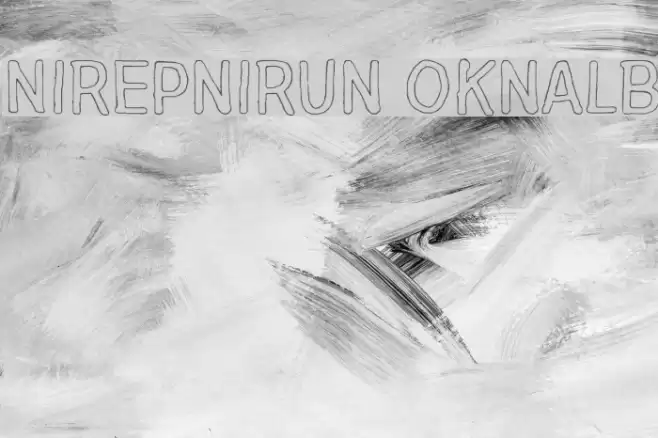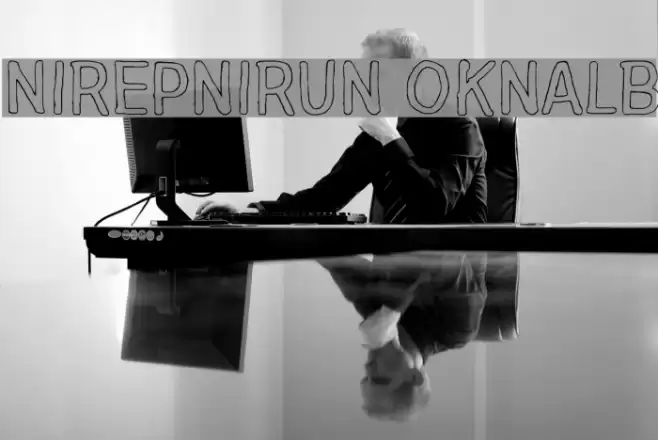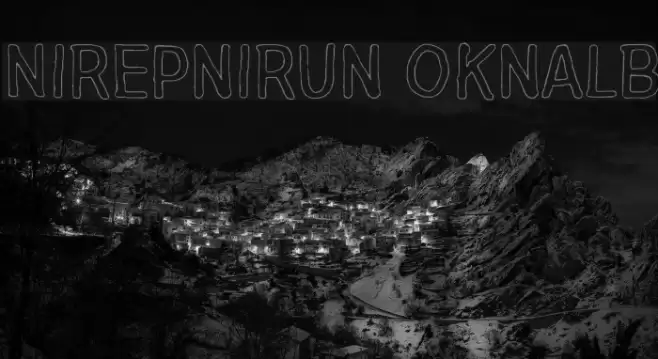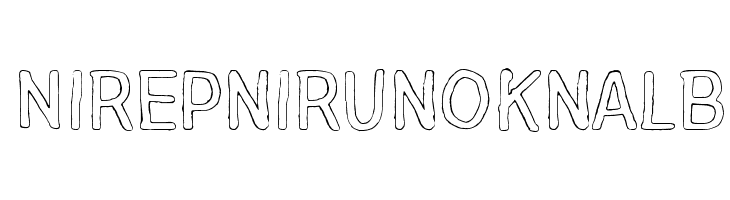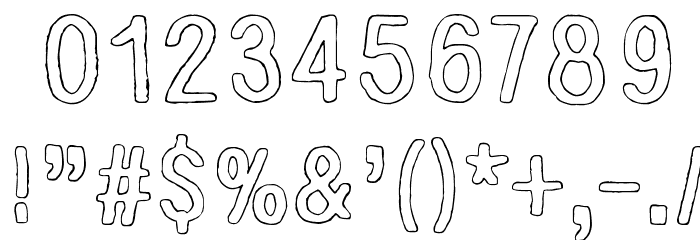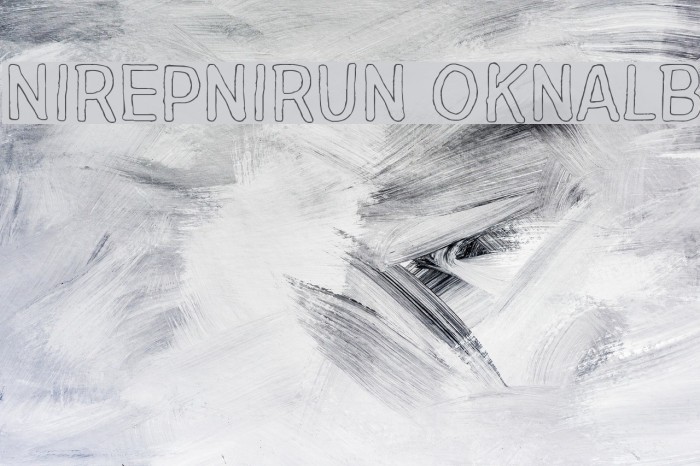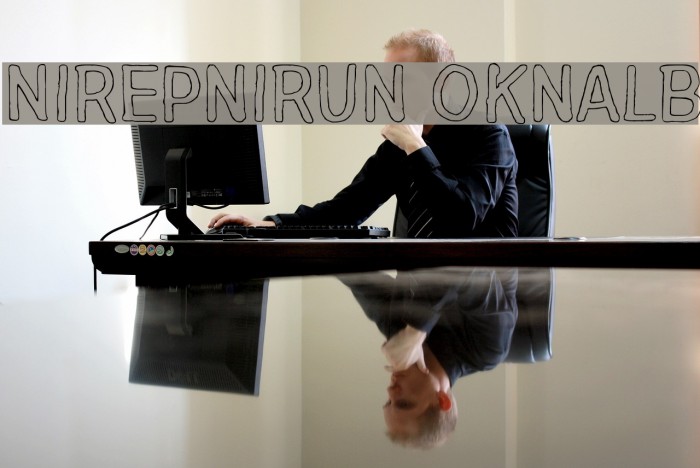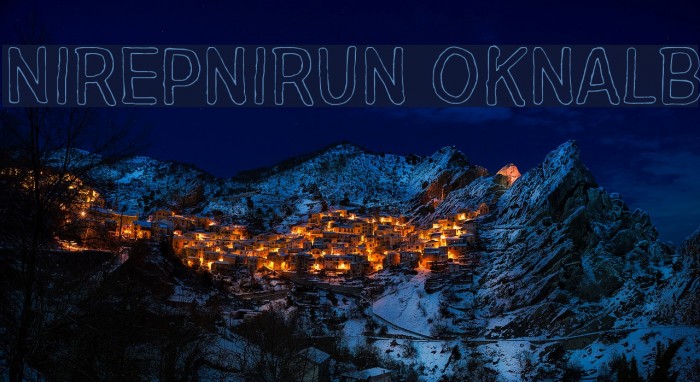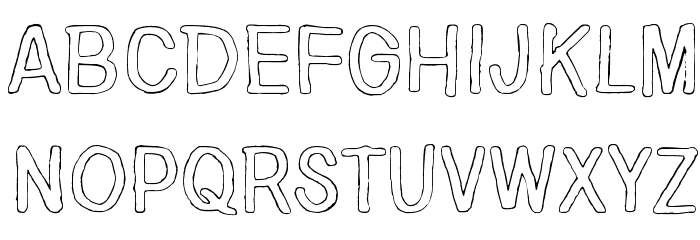
Nirepnirun oknalb Font
Nirepnirun oknalb Description
This font features a playful and informal style with a hand-drawn appearance. The letters are outlined, giving them a sketch-like quality that adds a sense of whimsy and creativity. Each character maintains a consistent height and width, contributing to a uniform look while still retaining a casual feel. The rounded edges and slightly irregular lines enhance its approachable and friendly aesthetic. This font is versatile, suitable for projects that require a personal touch or a fun, lighthearted vibe.
A playful, hand-drawn outlined font with a casual and whimsical style from Distorted Eroded fonts.
- Proposed Projects: Ideal for children's books, comic strips, greeting cards, and playful branding projects.